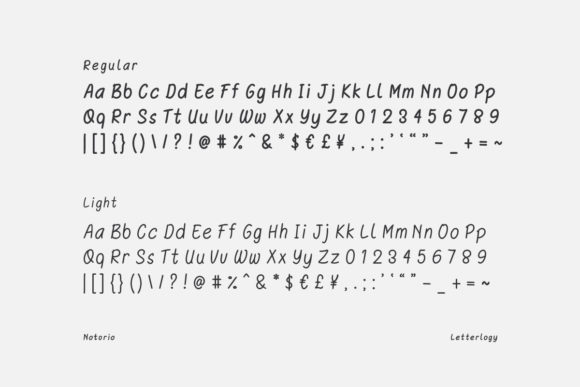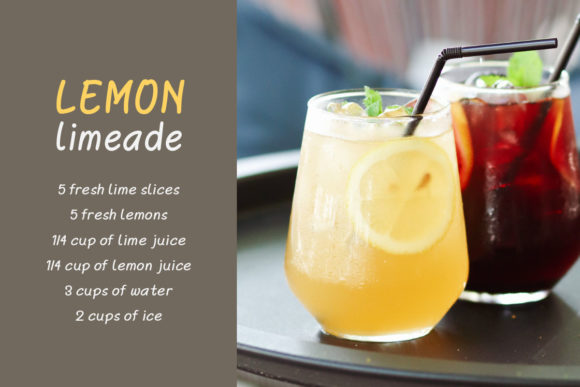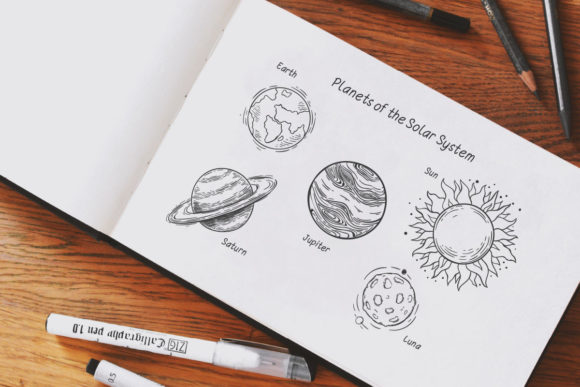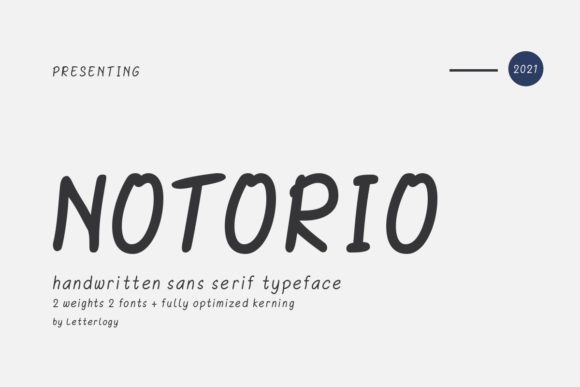
Introduction to Notorio Font
Notorio is a cool and natural handwritten font, that can be used for all chalkboard quotes or teaching material.
Its authentic look and feel will add a personal and realistic feel to your designs .